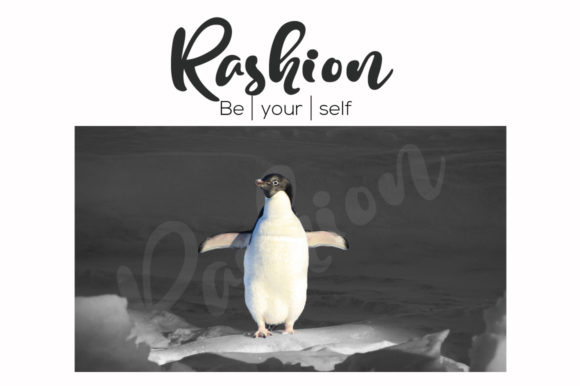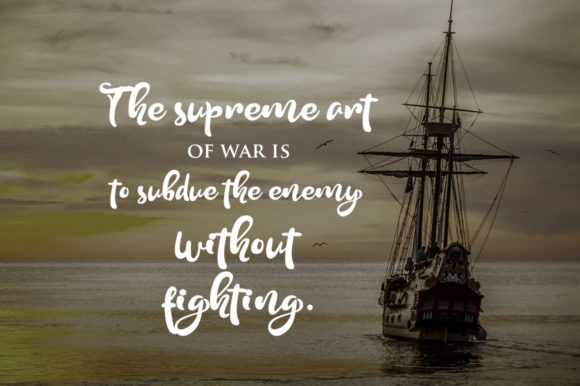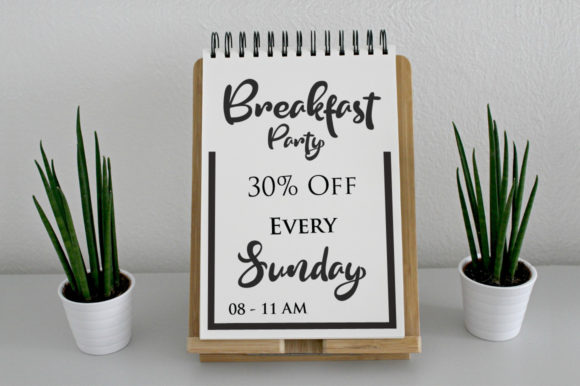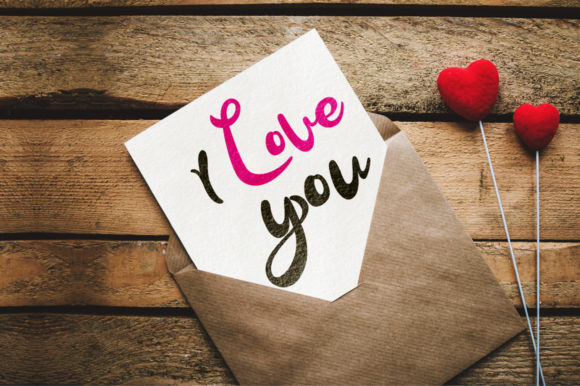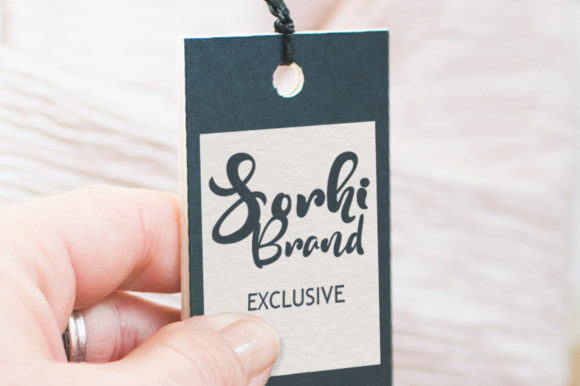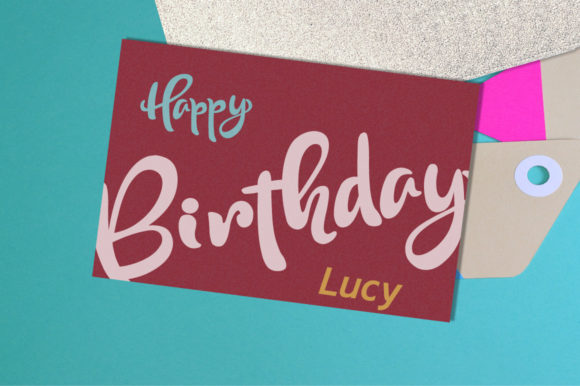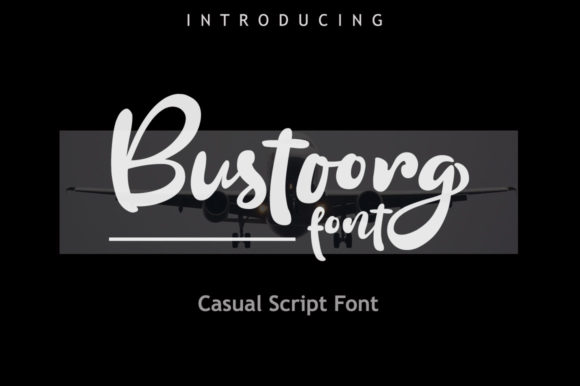
Bustoorg Font: Unleash Your Creativity with this Bold and Artistic Display Font
Are you a designer or crafter looking for a font that can add a touch of personality to your project? Look no further than Bustoorg Font! This casual display font is perfect for those who want to make a statement with bold and artistic shaped characters. In this article, we’ll dive into the world of Bustoorg Font and explore its features, benefits, and uses.
What is Bustoorg Font?
Bustoorg Font is a unique and creative display font that is designed to inspire your artistic side. With its bold and artistic shaped characters, this font is perfect for headlines, titles, and any other text that needs to stand out. Whether you’re working on a graphic design project, crafting a logo, or creating social media content, Bustoorg Font is sure to make a lasting impression.
Key Features of Bustoorg Font
• Bold and Artistic Shaped Characters: Bustoorg Font features bold and artistic shaped characters that are sure to grab attention.
• Casual Display Font: This font is designed for display purposes, making it perfect for headlines, titles, and other text that needs to stand out.
• Easy to Read: Despite its bold and artistic design, Bustoorg Font is easy to read, making it perfect for a wide range of applications.
• Highly Versatile: Bustoorg Font can be used for a variety of projects, from graphic design and branding to crafting and DIY projects.
Benefits of Using Bustoorg Font
So why choose Bustoorg Font for your next project? Here are just a few benefits of using this amazing display font:
• Adds Personality to Your Project: Bustoorg Font is a great way to add a touch of personality to your project and make it stand out from the crowd.
• Perfect for Creative Projects: If you’re working on a creative project, Bustoorg Font is the perfect choice. Its bold and artistic design is sure to inspire your artistic side.
Uses of Bustoorg Font
Bustoorg Font is a highly versatile font that can be used for a wide range of projects, including:
• Graphic Design: Bustoorg Font is perfect for graphic design projects, including brochures, flyers, and posters.
• Branding: Use Bustoorg Font to create a unique and memorable brand identity.
• Crafting and DIY Projects: Bustoorg Font is perfect for crafting and DIY projects, including handmade cards, gift tags, and more.
• Social Media Content: Use Bustoorg Font to create eye-catching social media content, including Facebook posts, Instagram captions, and more.
Tips for Using Bustoorg Font
Here are a few tips for using Bustoorg Font effectively:
• Use it for Headlines and Titles: Bustoorg Font is perfect for headlines and titles, where its bold and artistic design can really shine.
• Experiment with Different Colors: Try pairing Bustoorg Font with different colors to create a unique and eye-catching design.
• Use it in Combination with Other Fonts: Bustoorg Font can be used in combination with other fonts to create a unique and interesting design.
Bustoorg Font is a bold and artistic display font that is perfect for designers and crafters who want to add a touch of personality to their project. With its easy-to-read design and highly versatile nature, Bustoorg Font is sure to become a favorite in your font collection. So why wait? Get inspired by the lovely nature of Bustoorg Font and start creating today!